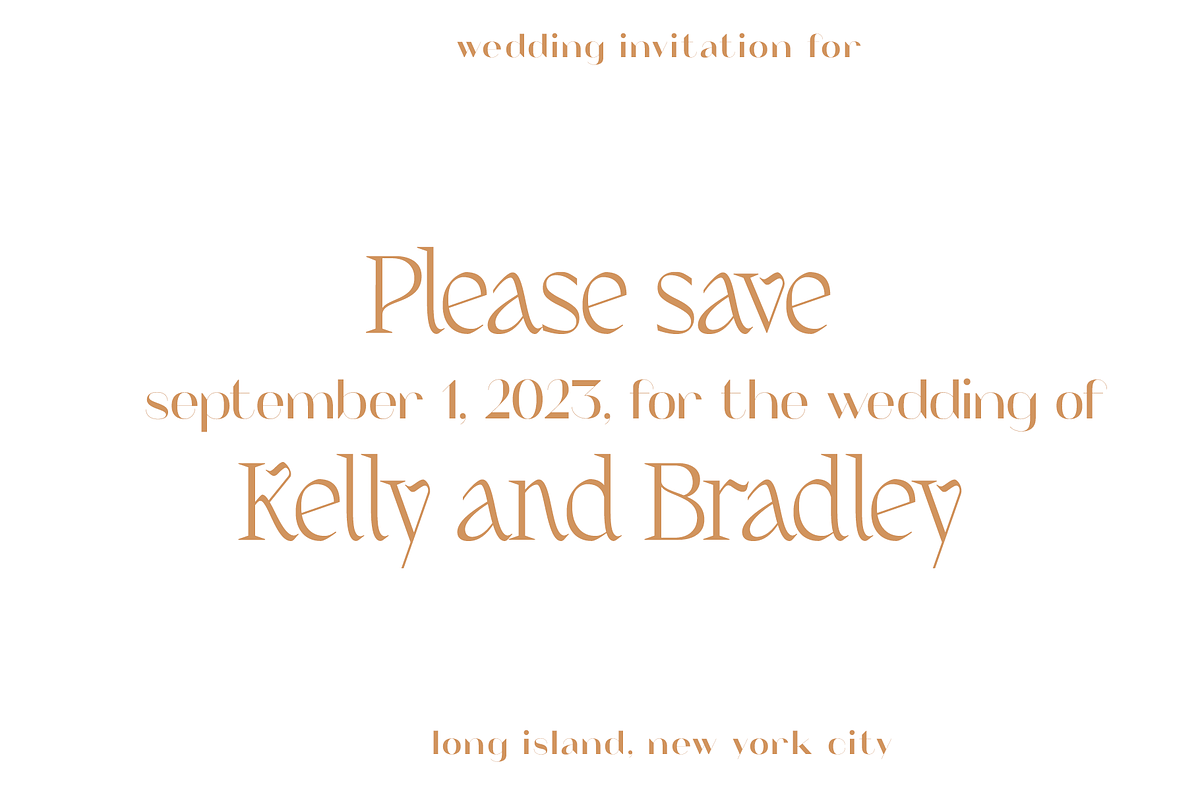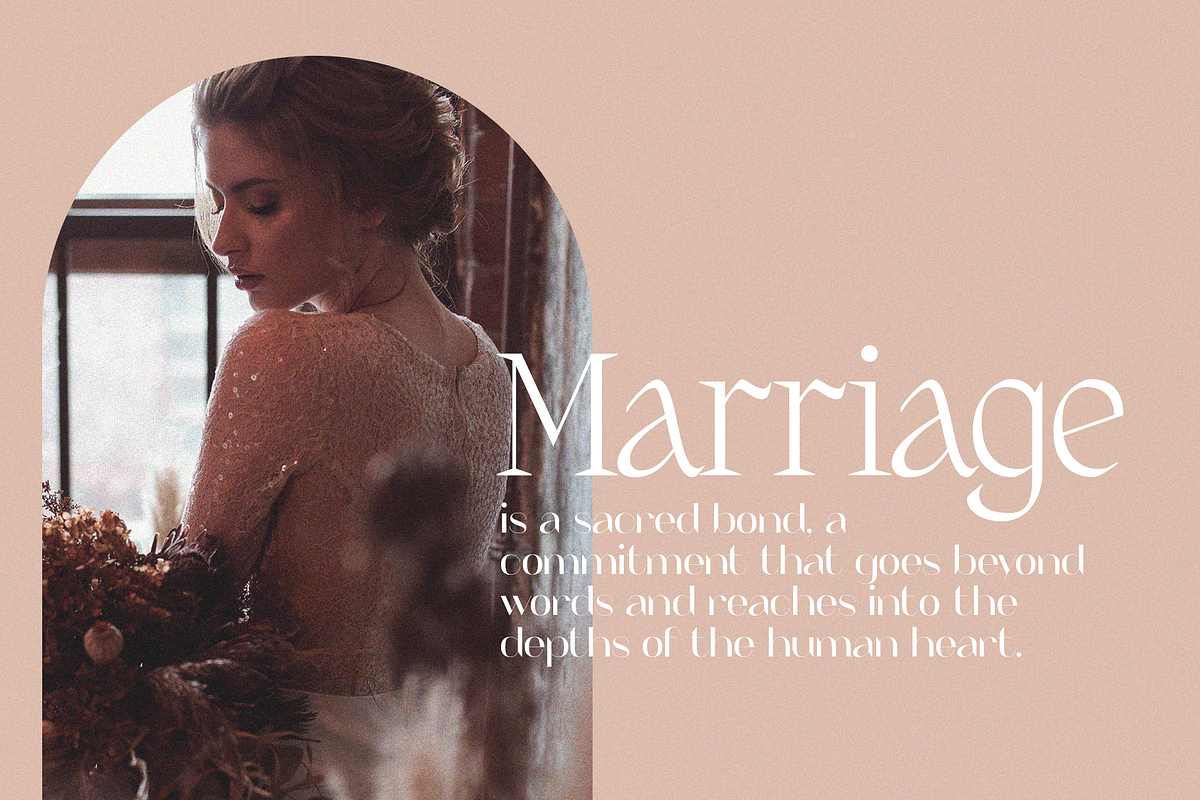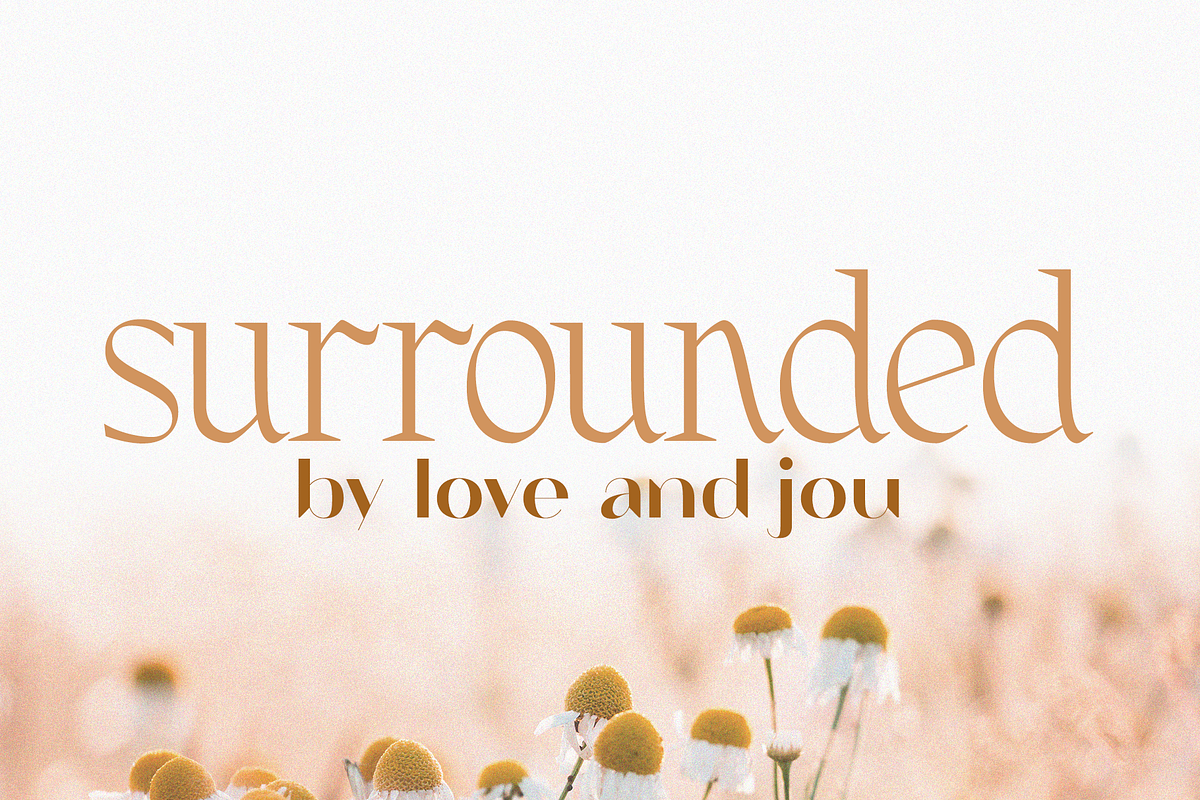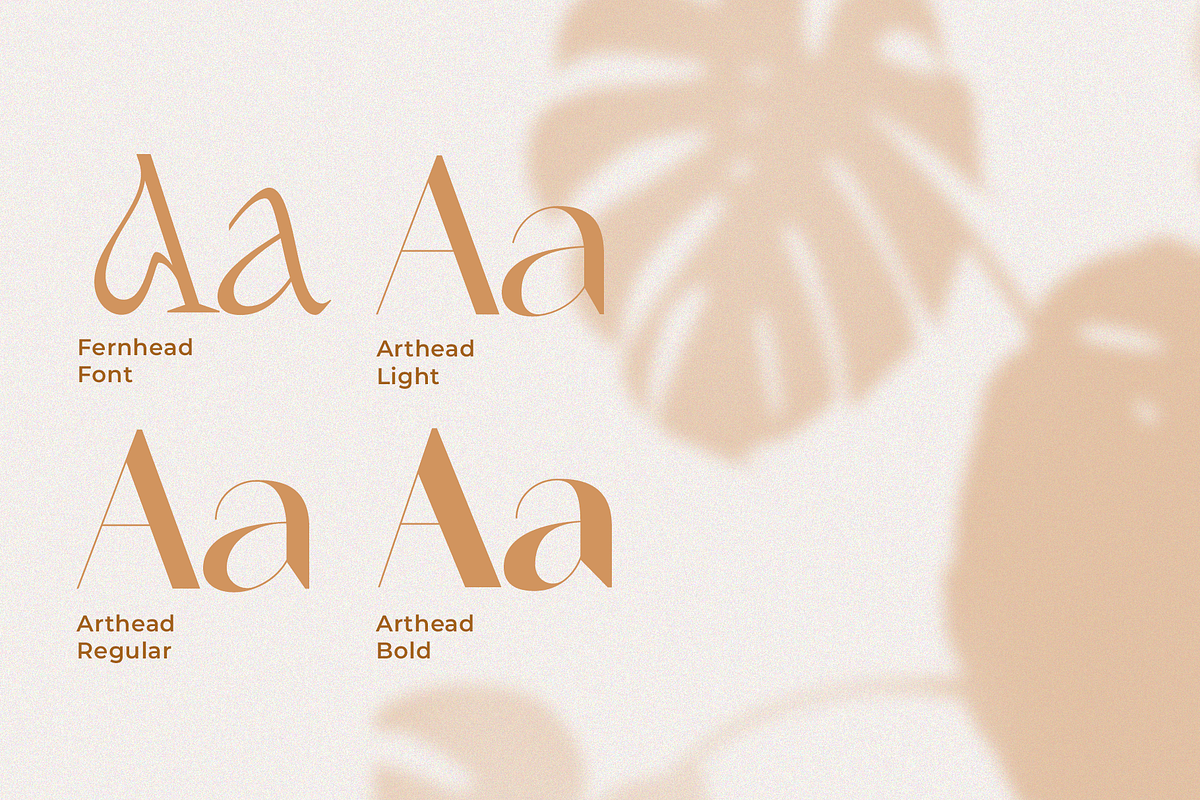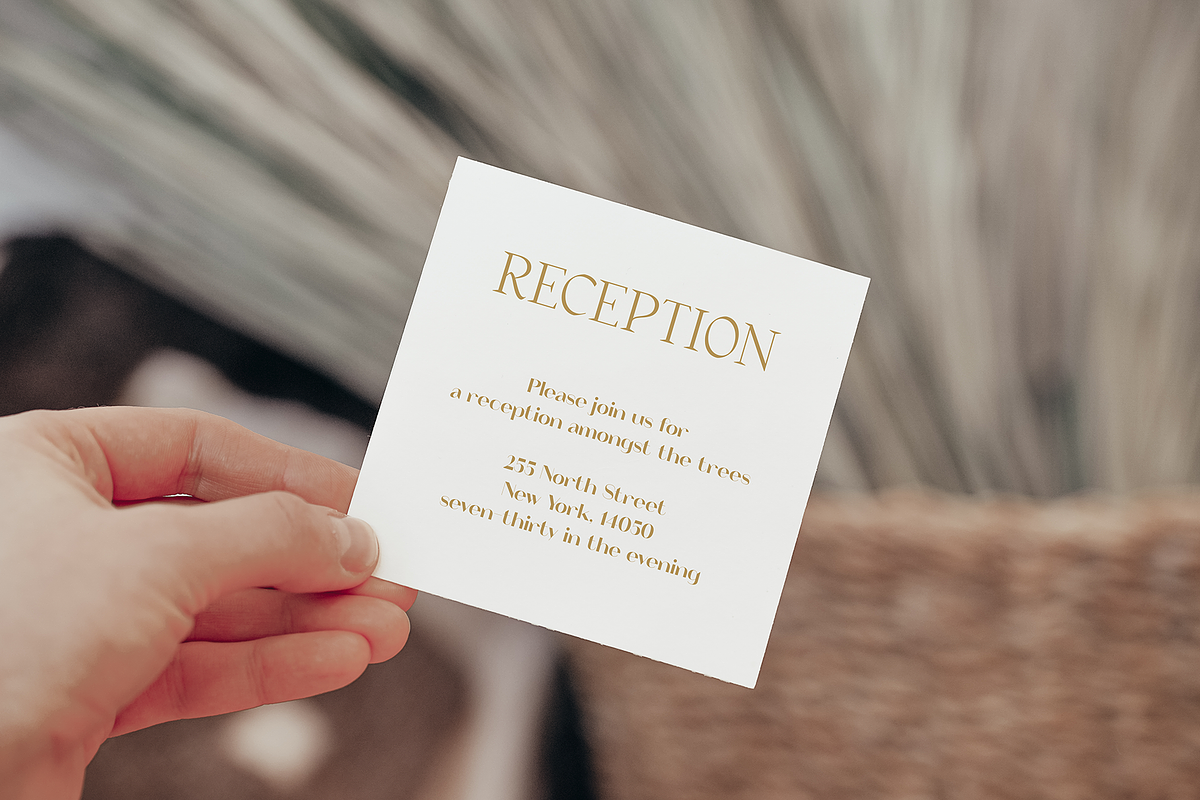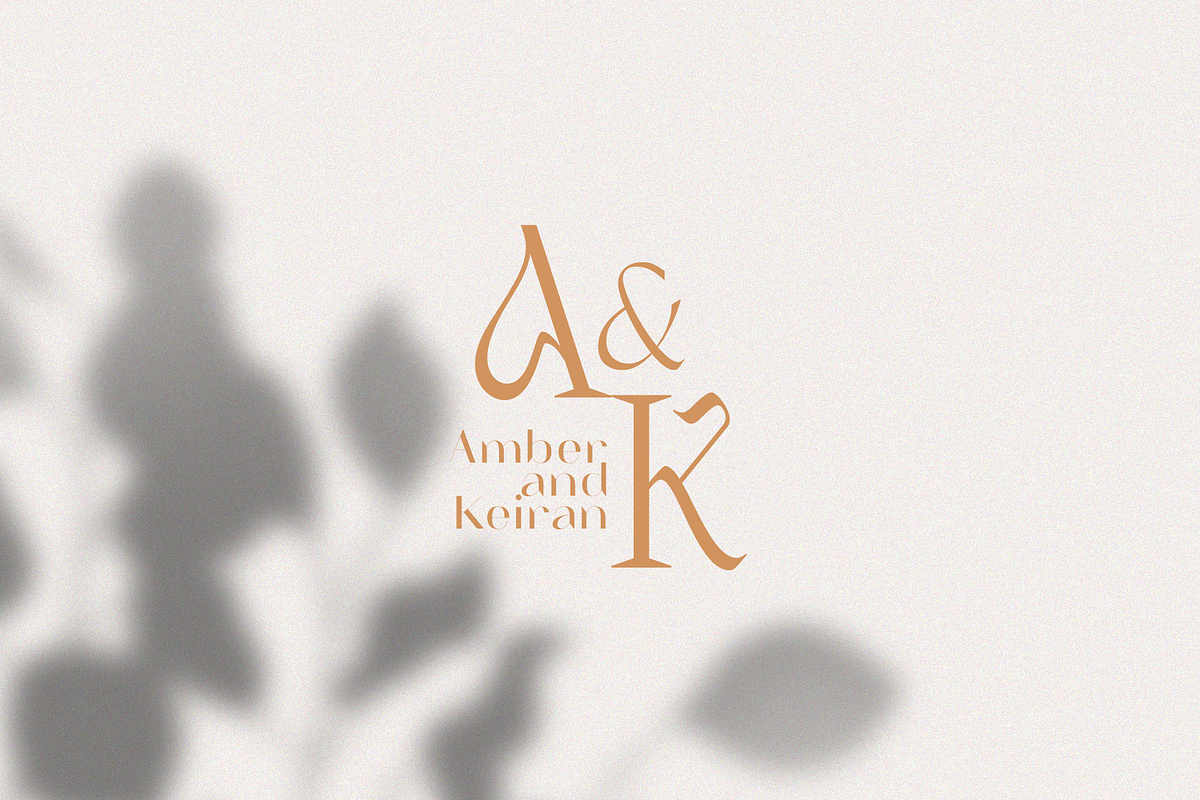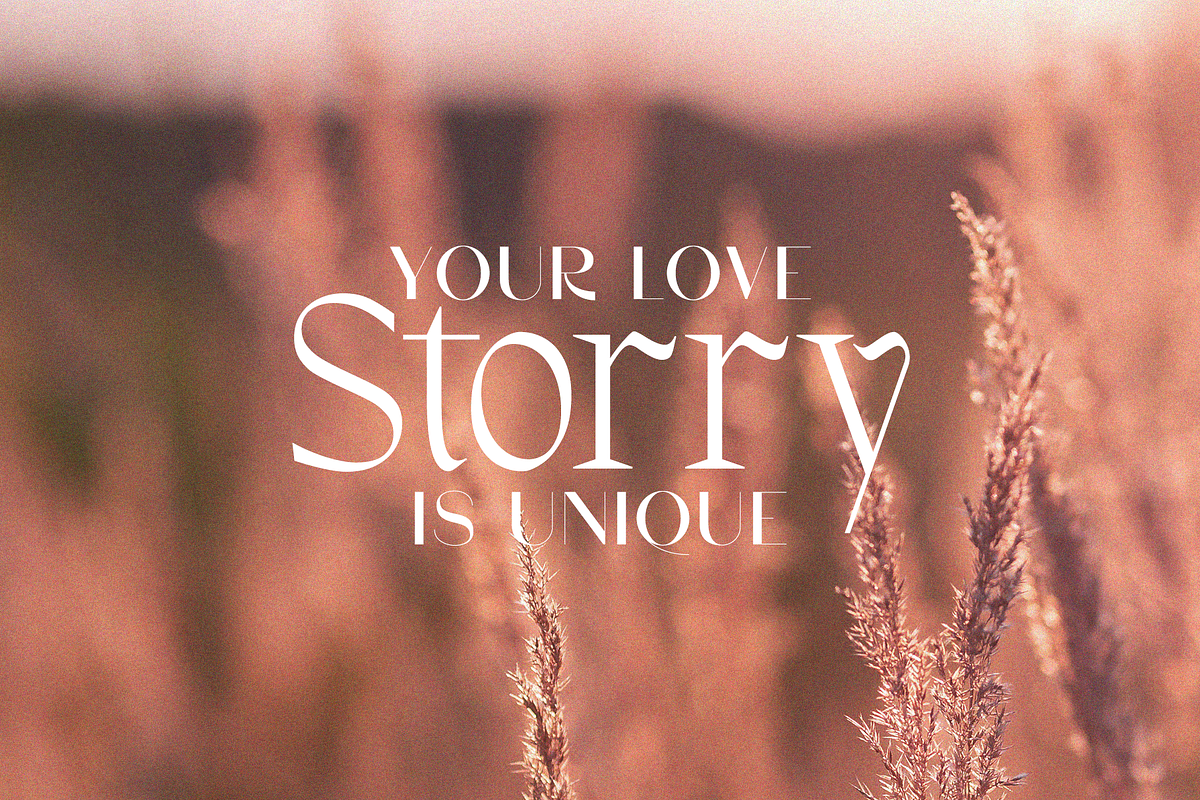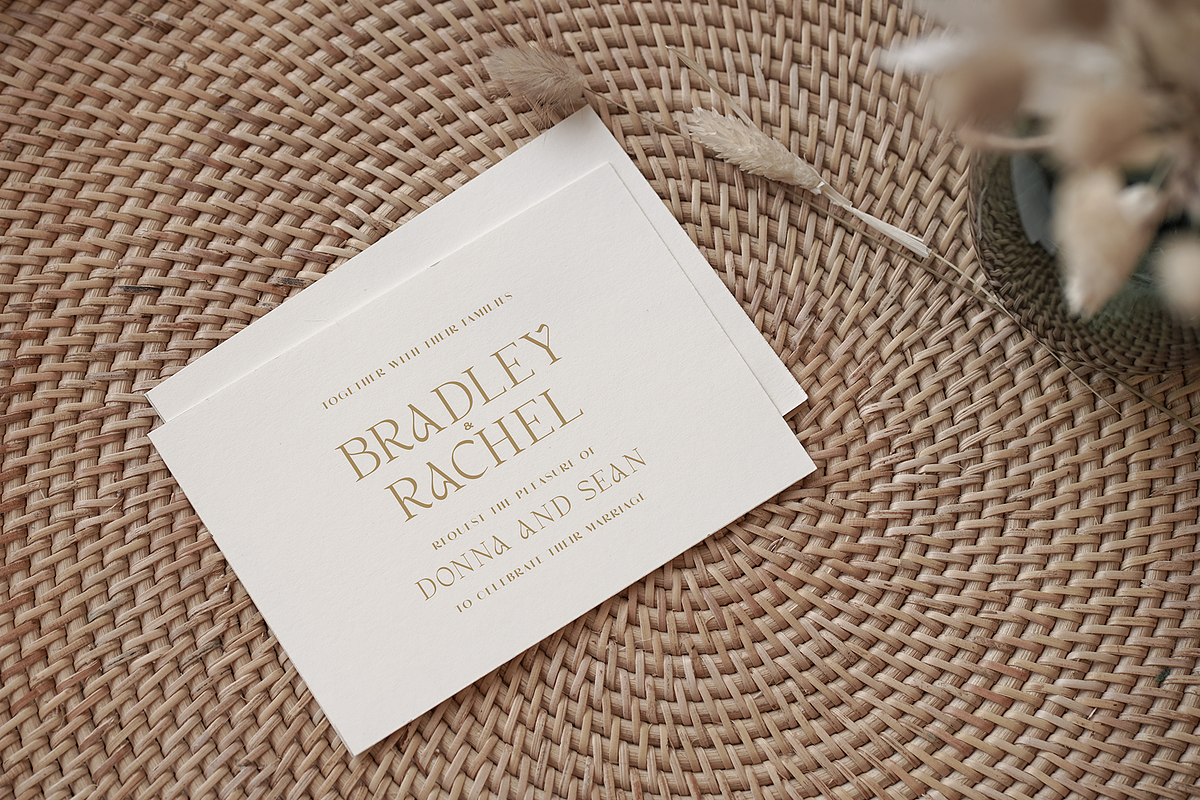
Dreamy Wedding Font Duo
Introducing The Dreamy Wedding Font Duo, a romantic pairing designed to perfectly capture the essence of a beautiful wedding. This dreamy duo consists of Fernhead and Arthead, two fonts that exude elegance and charm. Fernhead, an elegant serif font, is adorned with delicate decorative elements and organic curves. It's nonconformist design and handcrafted feel make it stand out, following the fluid movements of a pen. Arthead, on the other hand, is a modern sans-serif font with a subtle touch of decoration. It's minimal structure and curved shapes add a contemporary look to the pairing, complementing perfectly the other one and creating a harmonious blend of beauty and style. The Dreamy Wedding Font Duo combines the elegance of Fernhead with the modern flair of Arthead, creating a visual harmony that is both dreamy and modern. These fonts are specifically crafted to add a delicate touch to your wedding-related designs, allowing you to create captivating and unforgettable invitations and stationery that reflect the dreamy atmosphere of an unforgettable day.